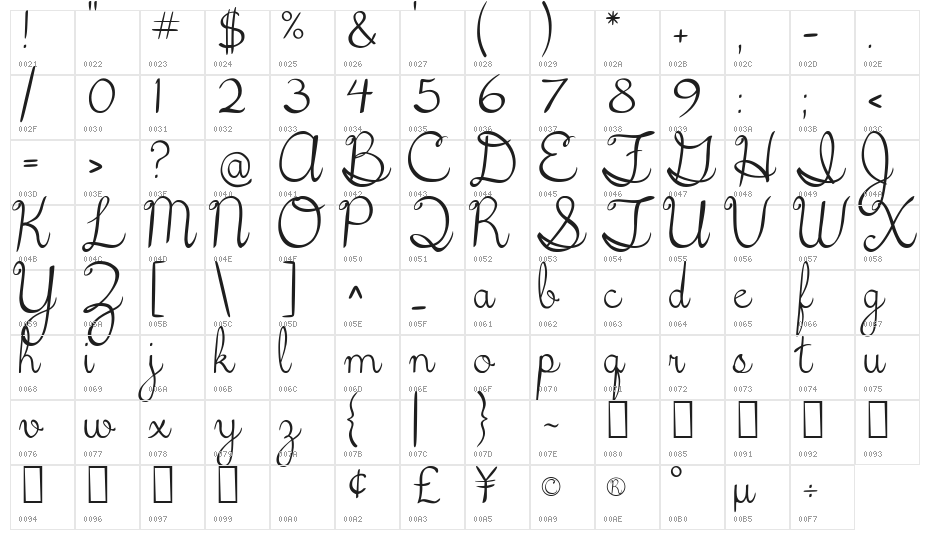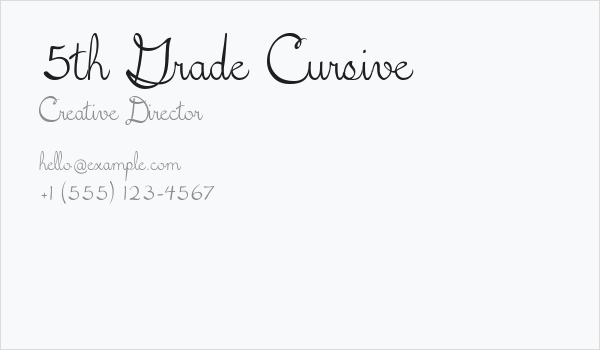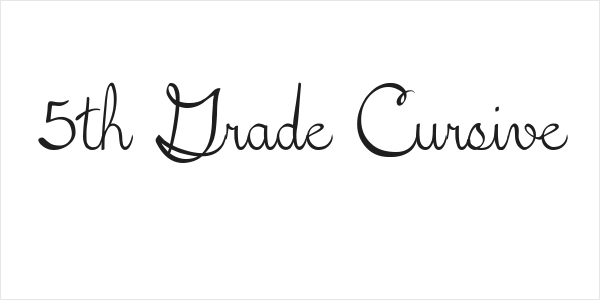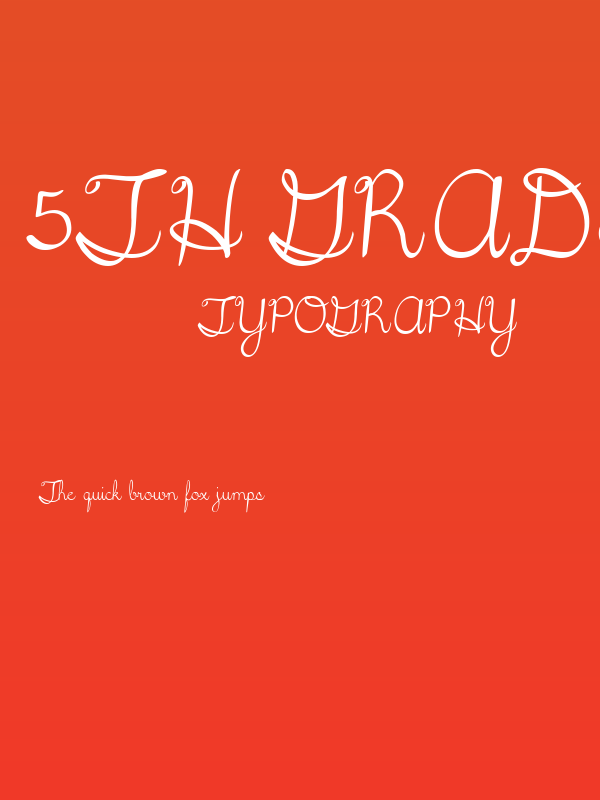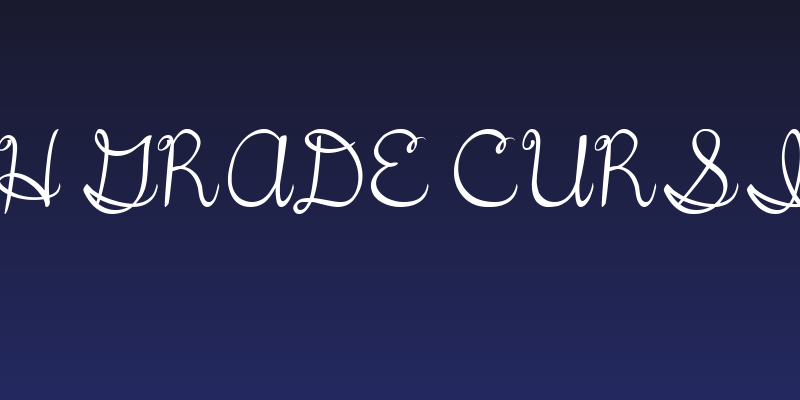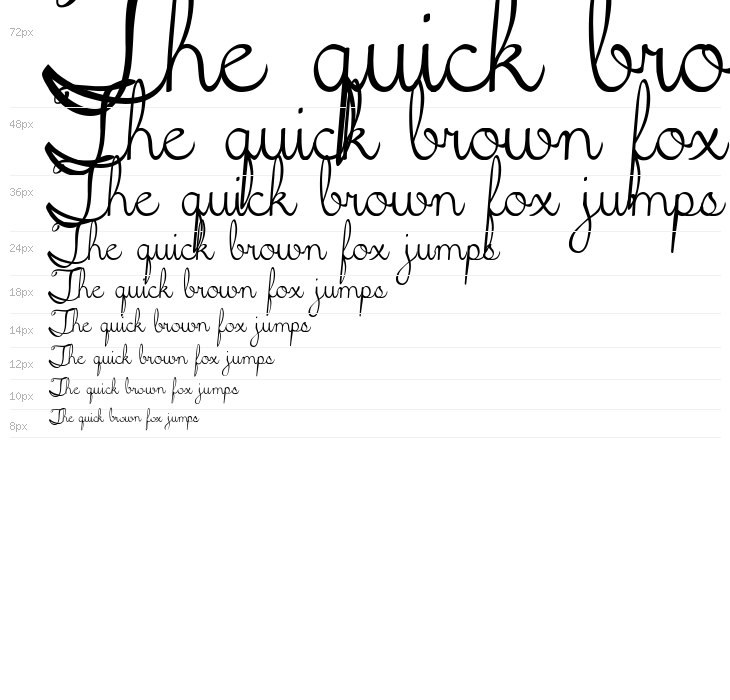
5th Grade Cursive Font
5th Grade Cursive Description
This cursive font features a playful and flowing style, reminiscent of handwriting taught in elementary school. The uppercase letters are elegantly looped, with a consistent slant that adds a sense of motion and fluidity. Lowercase letters maintain a similar slant and are connected, enhancing the cursive effect. The numerals are clear and easy to read, while special characters retain the same playful loops and curves. This font is ideal for projects that require a personal touch or a sense of nostalgia, such as invitations, greeting cards, or educational materials.
| Overall Style | Nostalgic, Playful |
| Use Case | Invitations, Greeting cards, Educational materials |
| Proposed Projects | Ideal for invitations, greeting cards, educational materials, and any project needing a personal touch. |